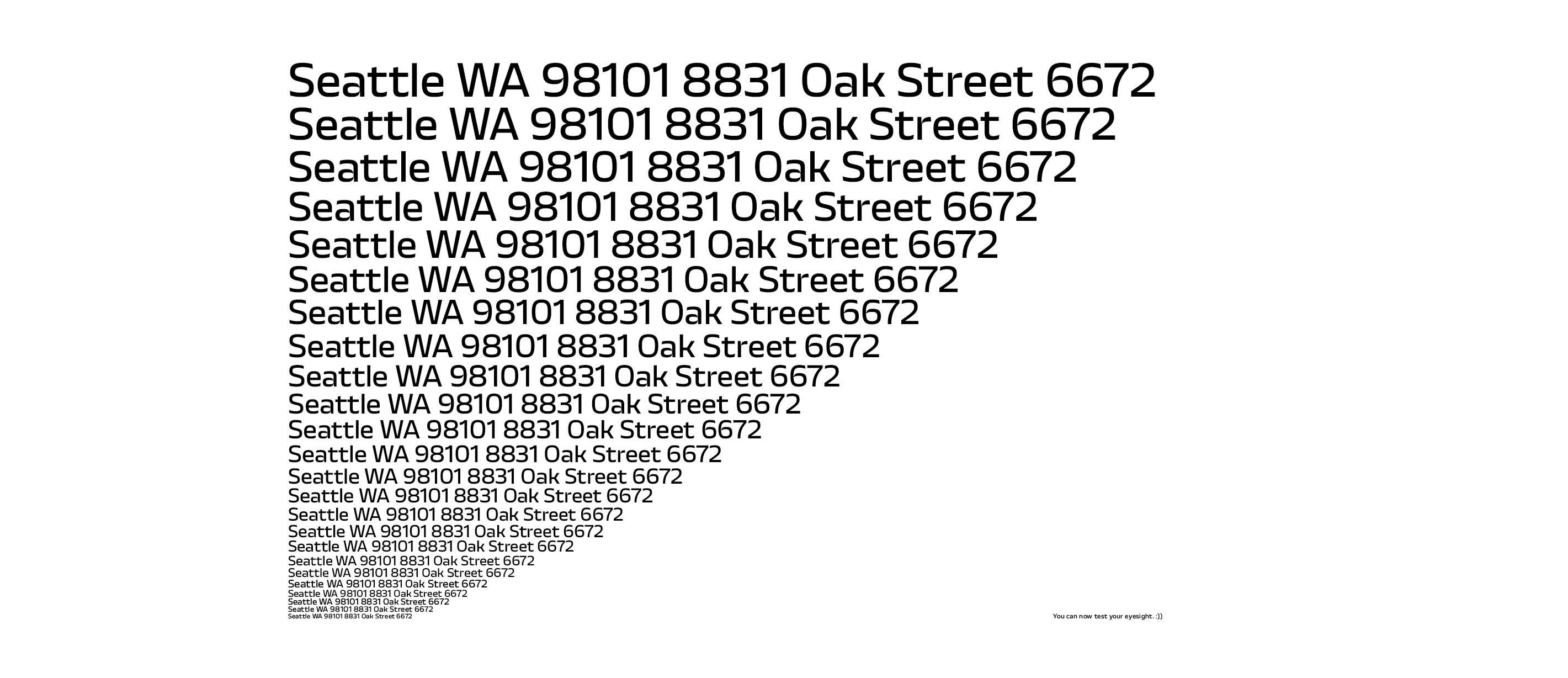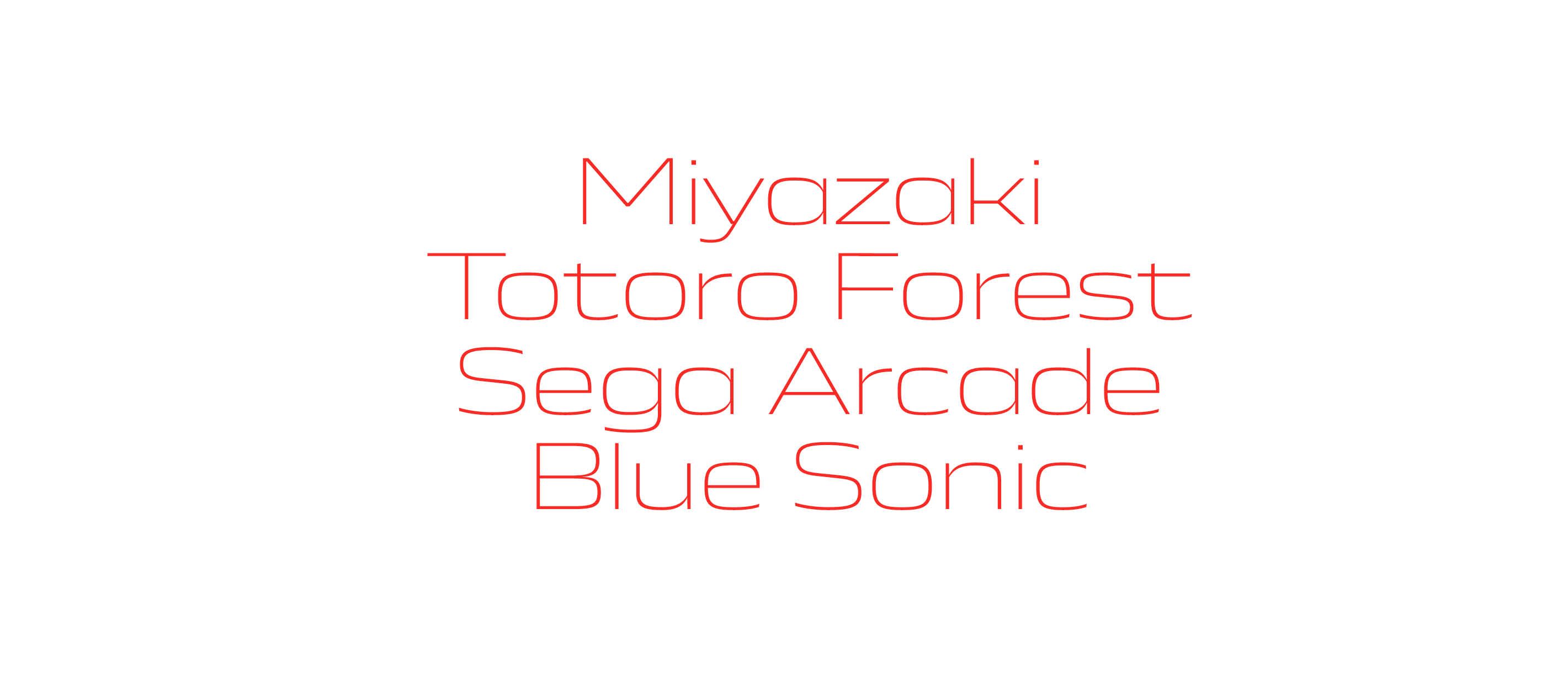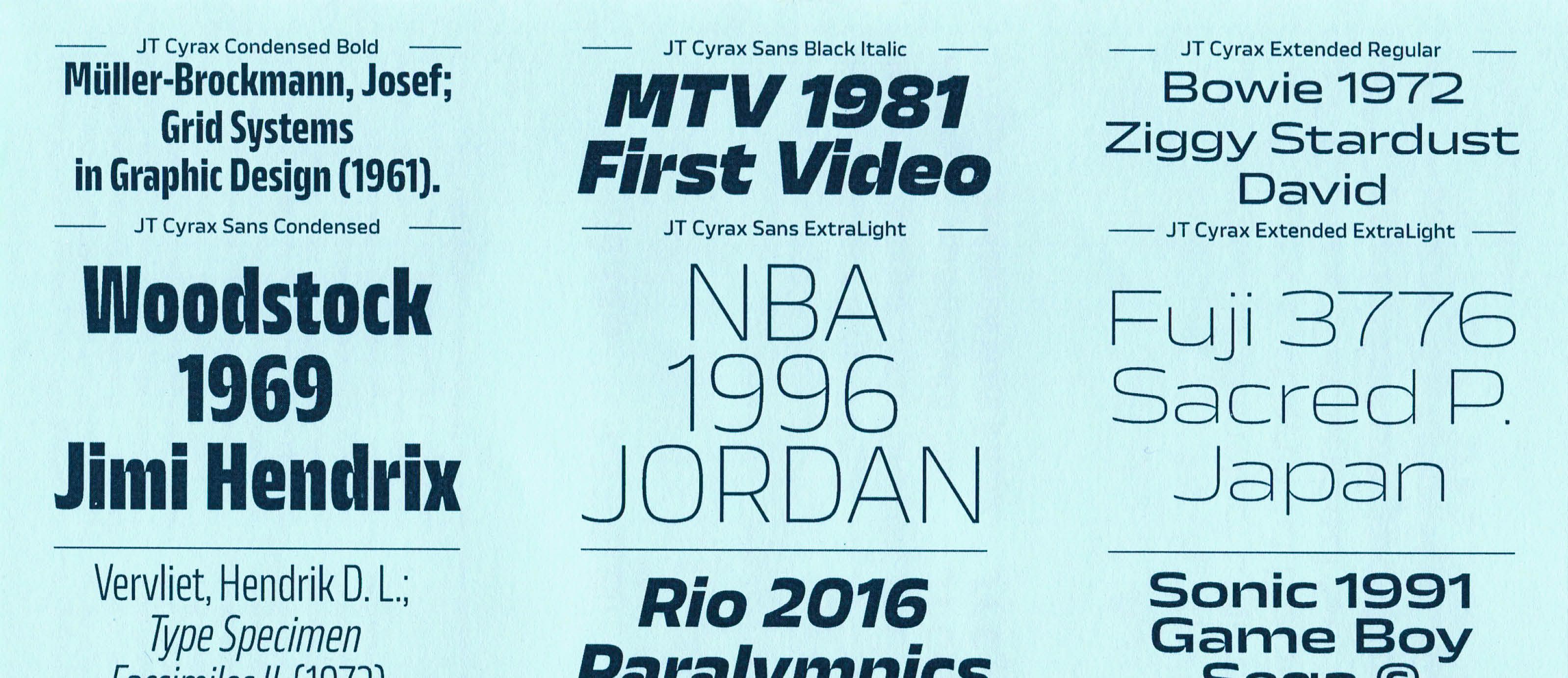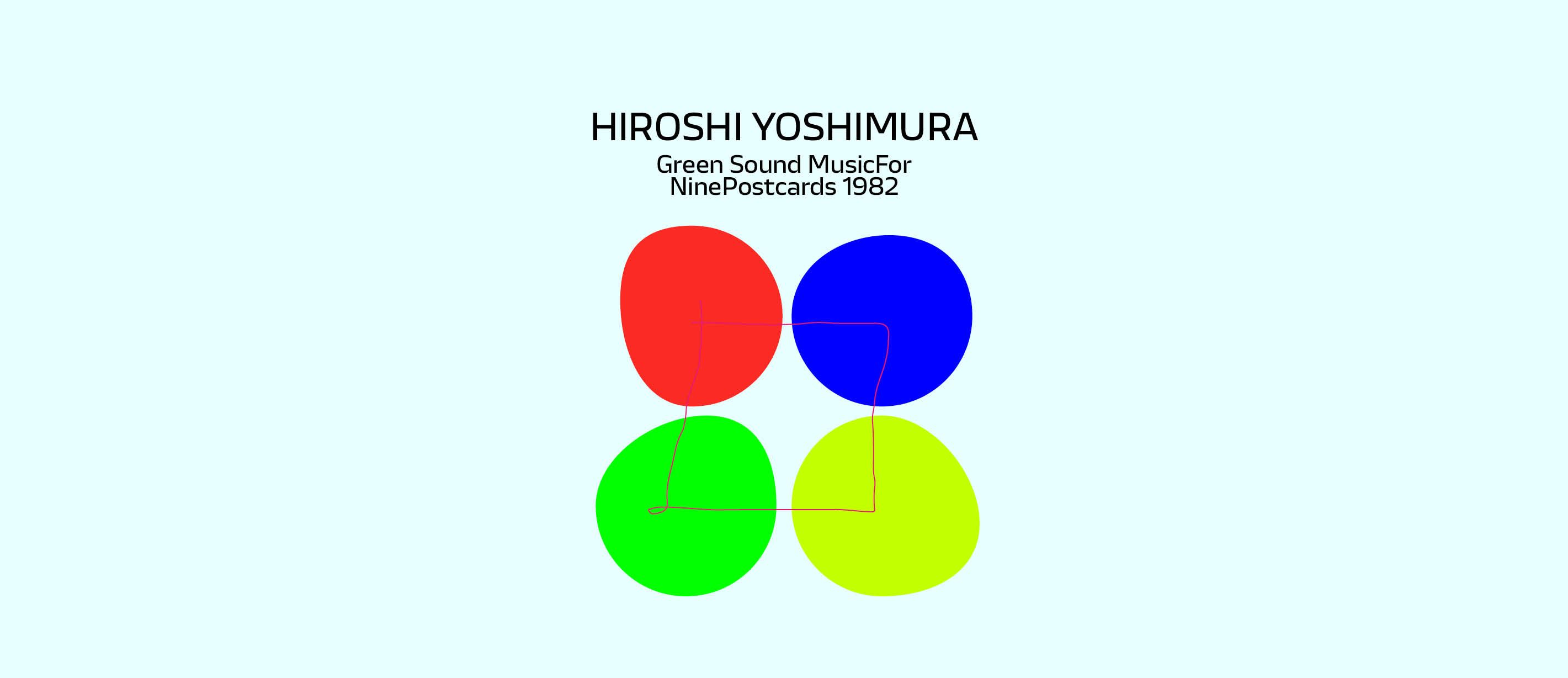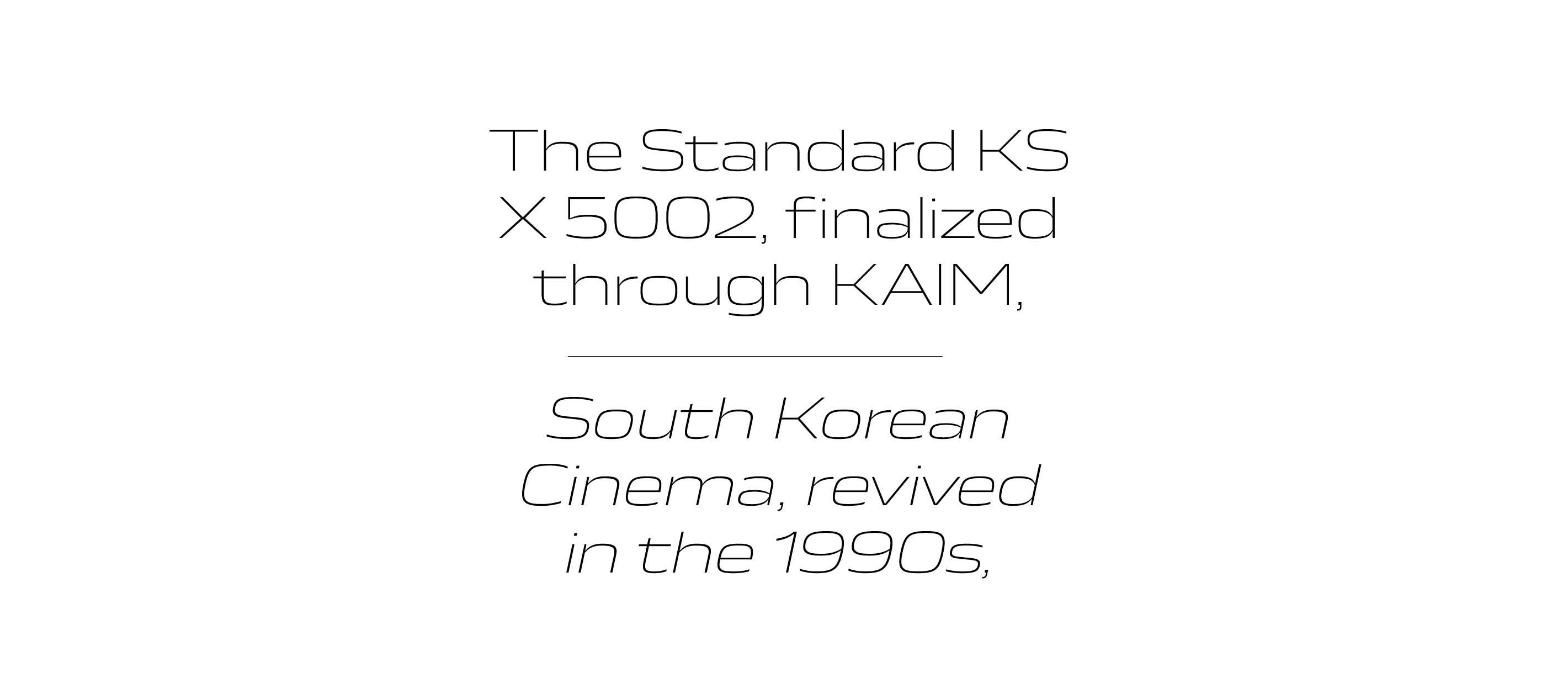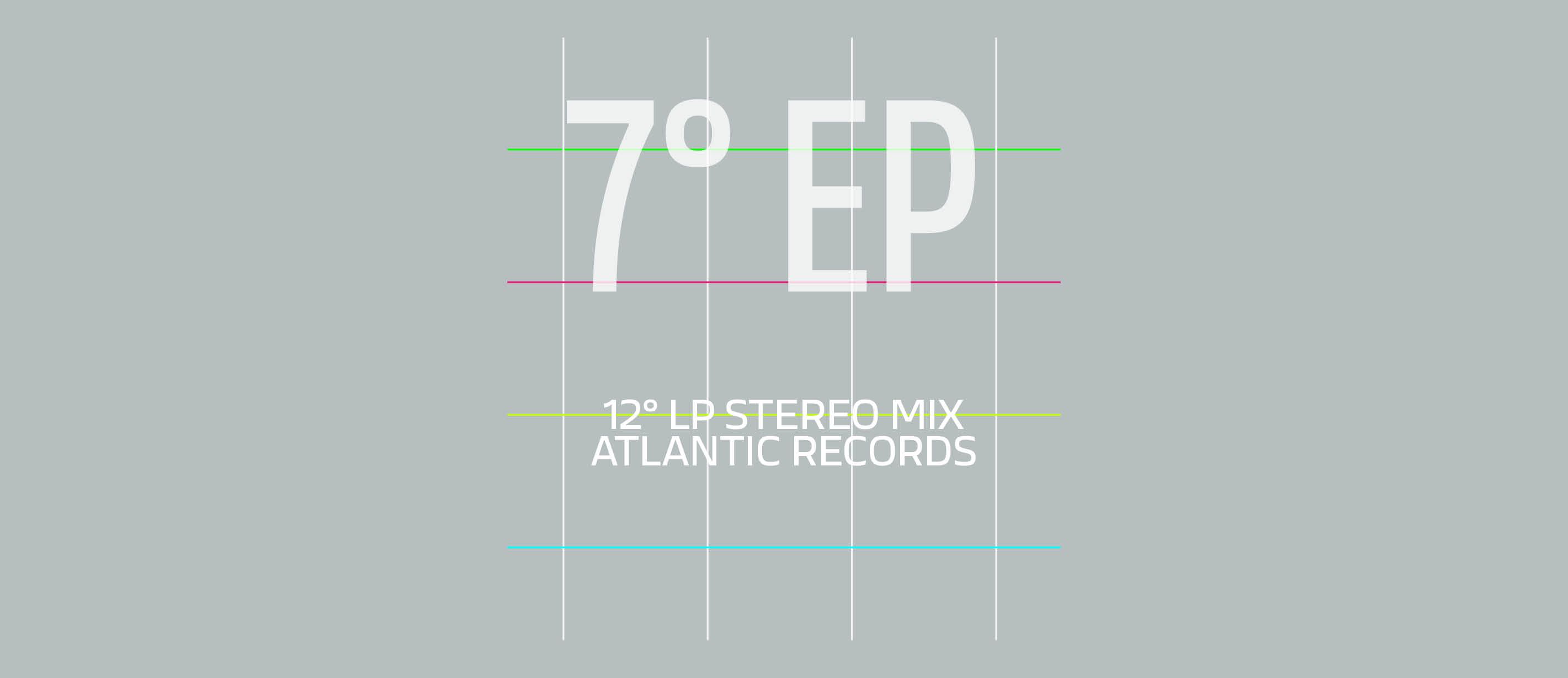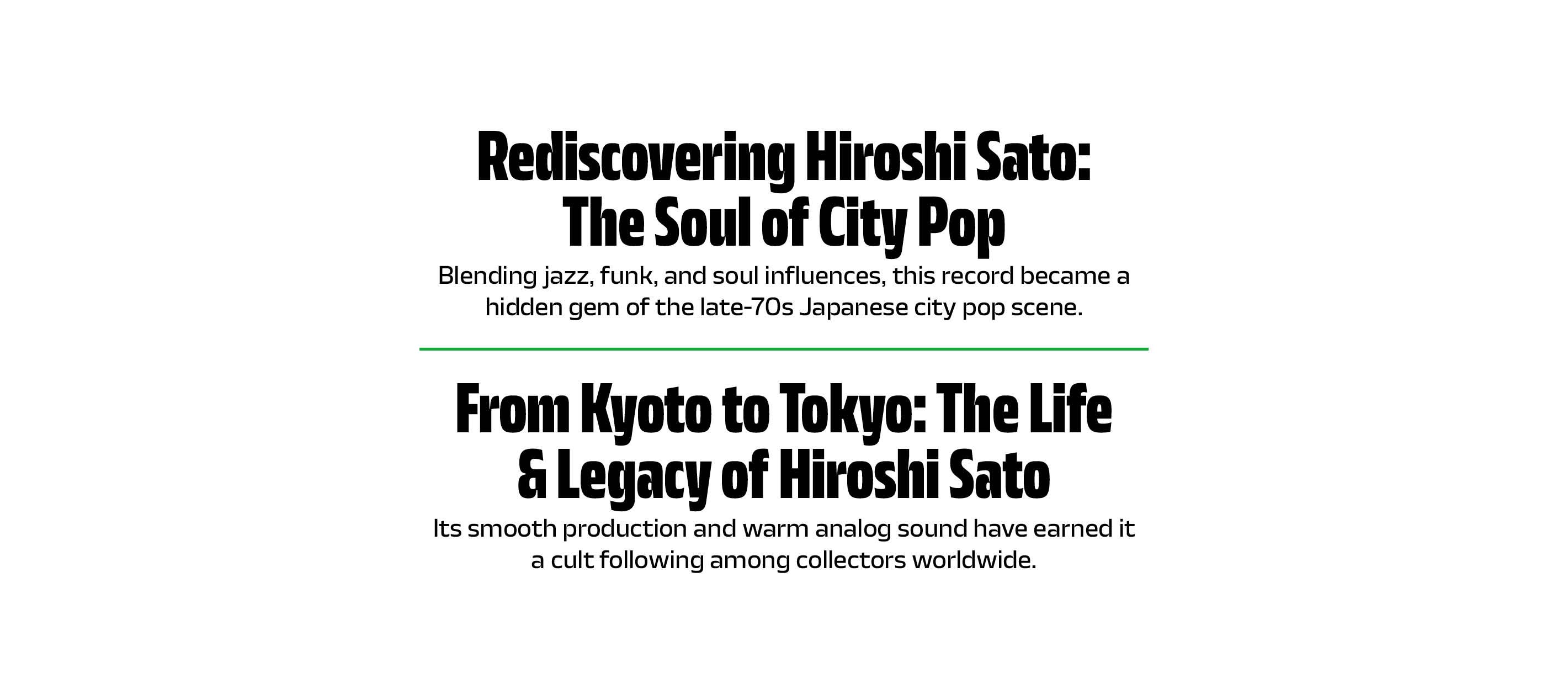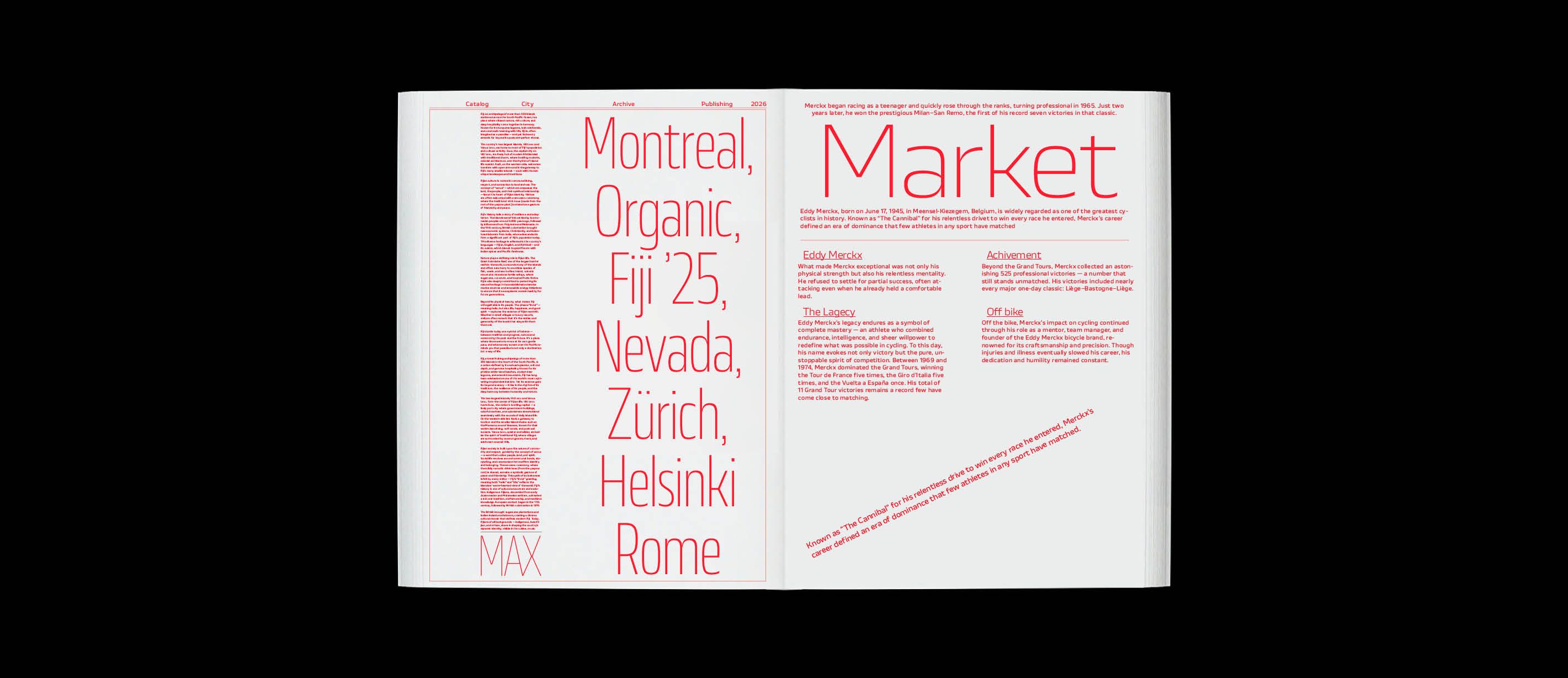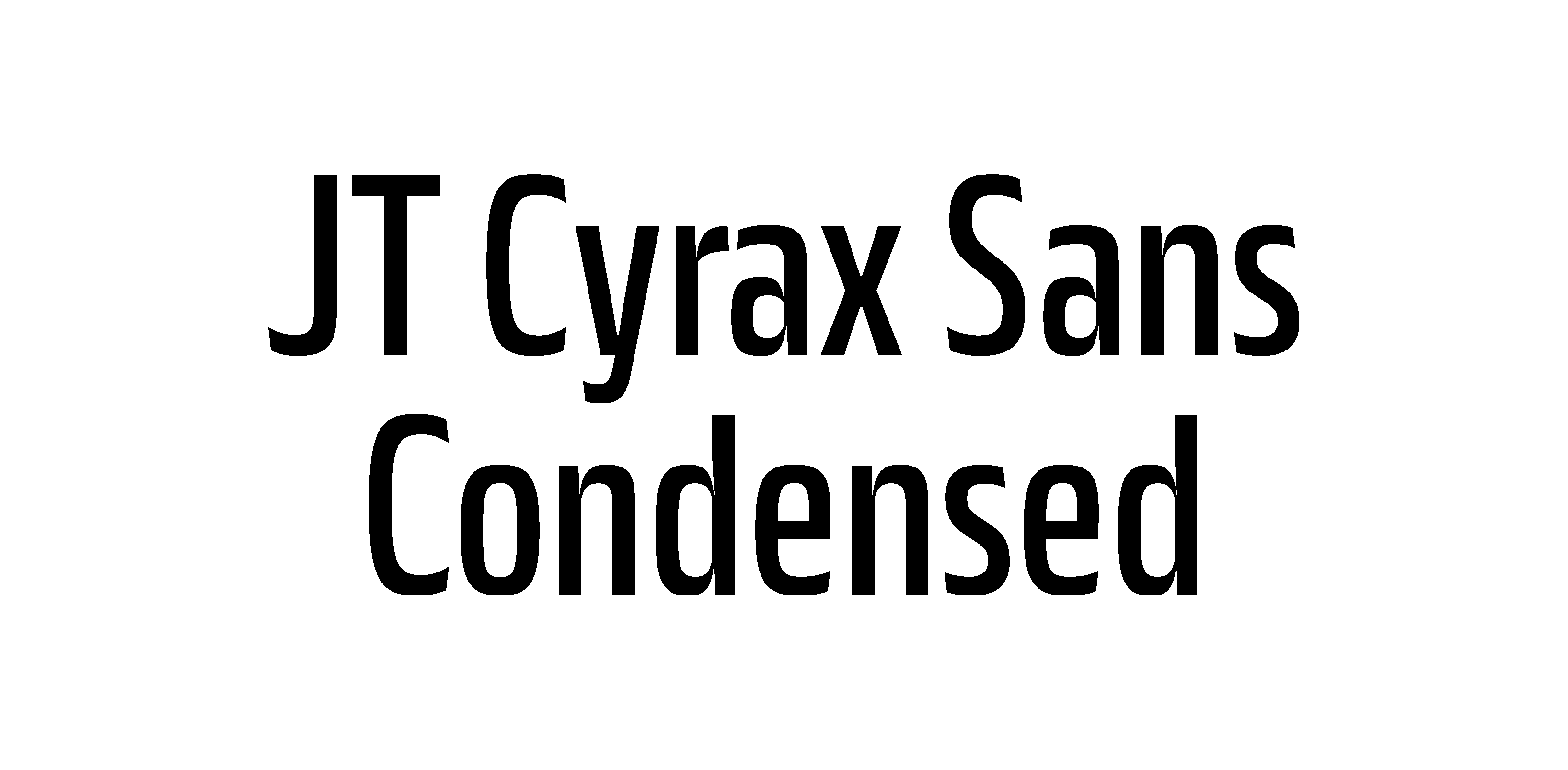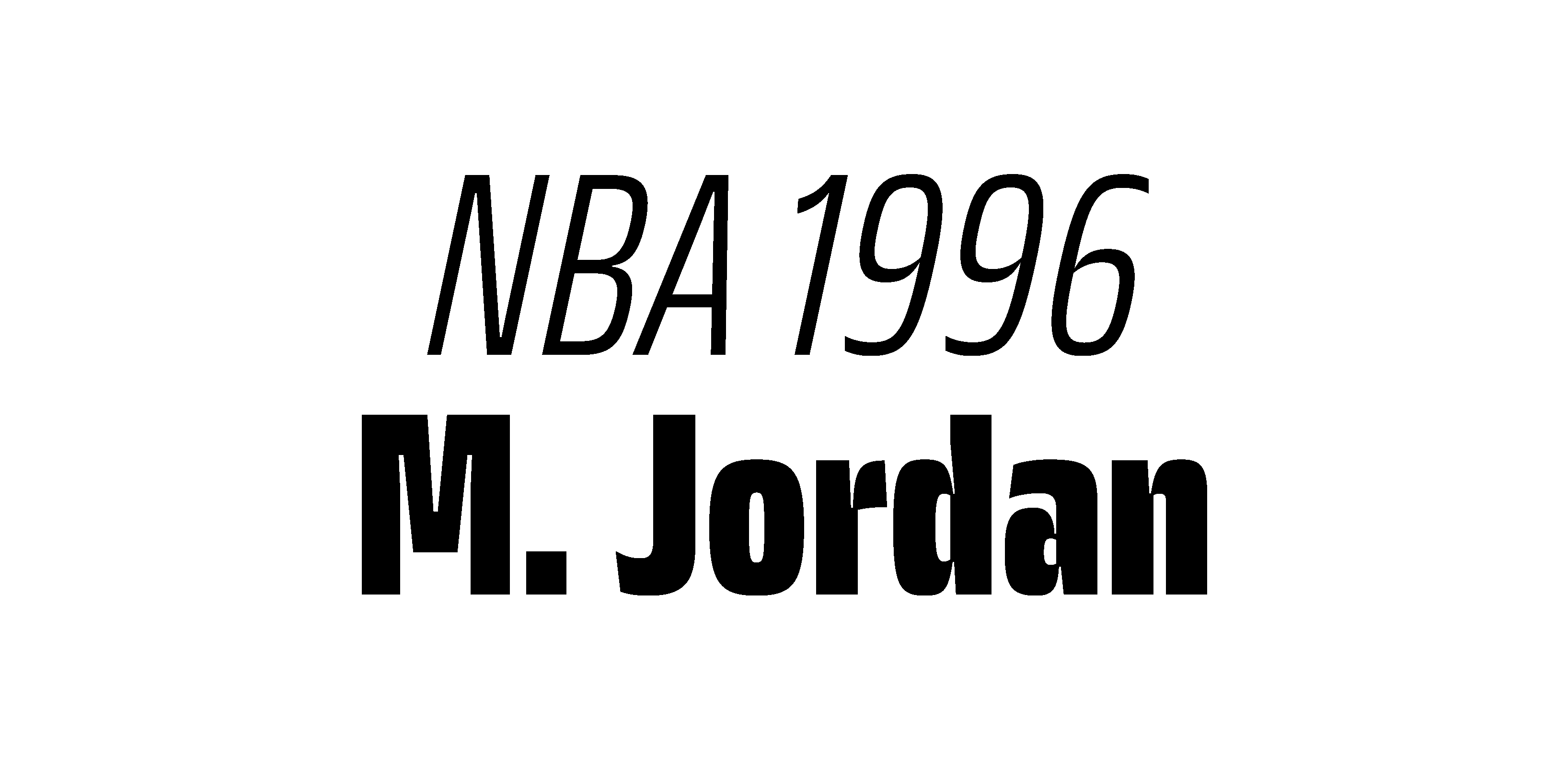
JT Cyrax is a contemporary superfamily that combines slab and sans styles. Its squarish letterforms draw inspiration from the fonts often seen in classic sci-fi movies, films, and tech logos. Designed with jewelry-like precision by Rafał Buchner, Jt Cyrax features countless technical refinements to ensure excellent performance on screen and in print, at both small and large sizes. The aim was to create a typeface that carries both charm and restraint, a balance of character and clarity. If we were to place Jt Cyrax within a type genre, its square, boxy forms nod to classics like Aldo Novarese’s Eurostile. Yet, JT Cyrax distinguishes itself with a unique voice, offering a fresh perspective on a familiar style. With its full range of widths and weights across both Sans and Slab styles, Cyrax also aligns with the tradition of superfamilies, echoing the versatility of Univers by the legendary Adrian Frutiger.
The Slab and Sans families open up a wide range of typographic possibilities, enabling users to experiment with diverse combinations and providing a versatile palette of features to meet the demands of modern typography. As with other JT releases, JT Cyrax comes with extended language support for Latin, with plans to expand to Cyrillic in the near future.